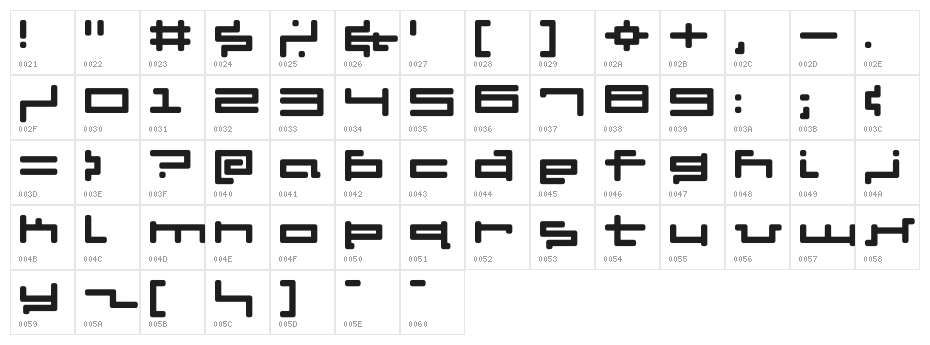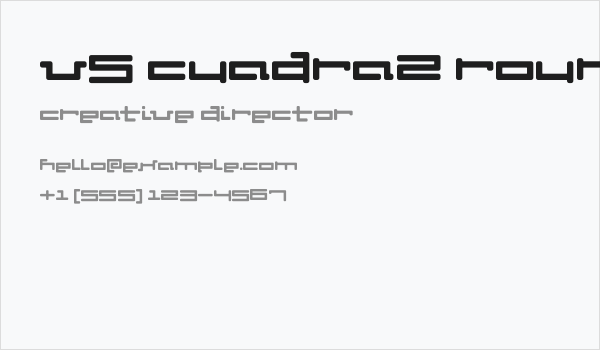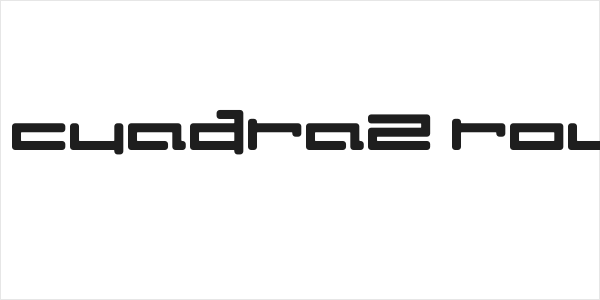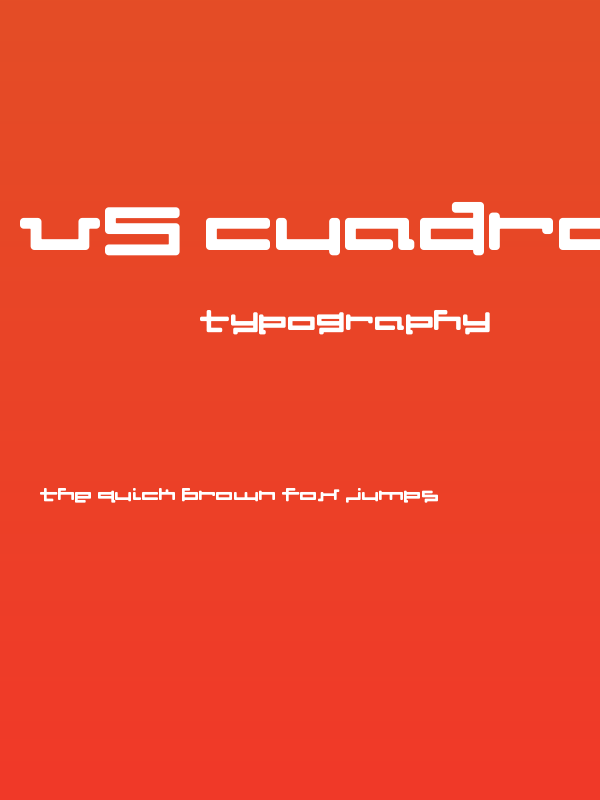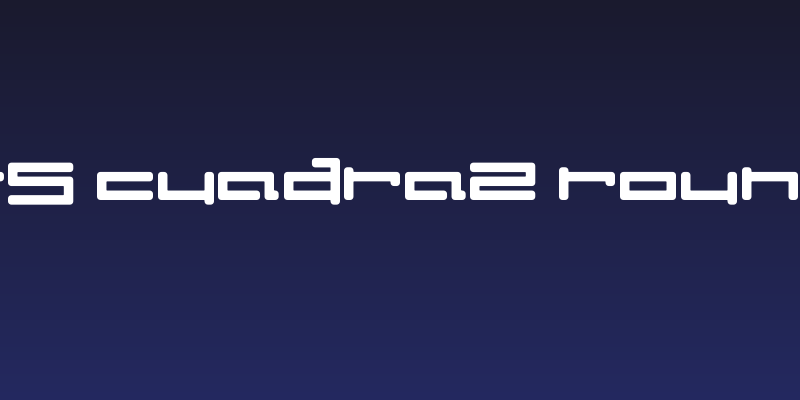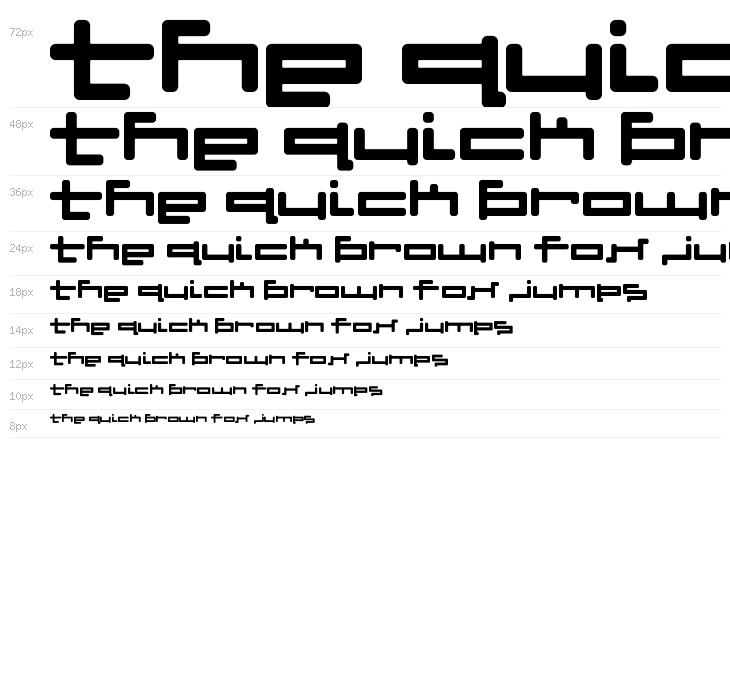
V5 Cuadra2 Round Font
V5 Cuadra2 Round Description
This font features a futuristic and geometric design with rounded edges and a digital aesthetic. The characters are constructed with uniform line thickness, giving it a monospaced appearance. The rounded corners soften the otherwise rigid structure, creating a balance between modernity and approachability. The numerals and special characters maintain this consistent style, ensuring a cohesive look across all elements. The font's unique style makes it suitable for tech-related projects or any creative work that requires a modern and sleek appearance.
| Use Case | Logos, Headlines, Digital interfaces |
| Proposed Projects | Ideal for tech branding, digital interfaces, video game graphics, and modern advertising. |